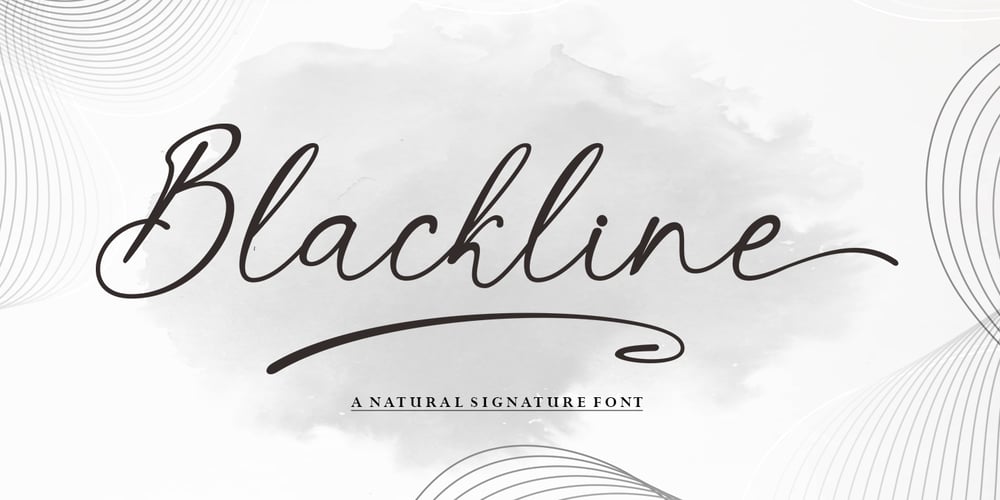
Blackline
Blackline font
Blackline Font Family was designed by Rahmad Rizky and published by Rhd Studio. Blackline contains 1 styles and family package options. Black line style – New modern & fresh script with handwritten and script style makes this font look elegant, natural, stylish and perfect for any extraordinary project that requires a handwritten feel.I am made with love and unique!!Blackline includes a full set of beautiful handwritten upper and lower case letters, numbers, assorted punctuation marks and bindings. All lowercase letters include starting and ending strokes, providing a realistic handwriting style. What did you get, honey?You will get : – Alternative Ligatures & Styles- Fonts include multilingual support for; Afrikaans, Albanian, Catalan, Danish, Dutch, English, Icelandic, Italian, Spanish, Portuguese, German, Swedish, Norwegian, Polish, Indonesian, ZuluTo use beautiful strokes, you need a program that supports OpenType features such as Adobe Illustrator CS, Adobe Photoshop CC, Adobe Indesign, and Corel Draw. but if your software doesn’t have Glyphs panel, you can install additional font swash file:If you have any questions about the latest fonts, please give us a short messagethank youRhd Studio